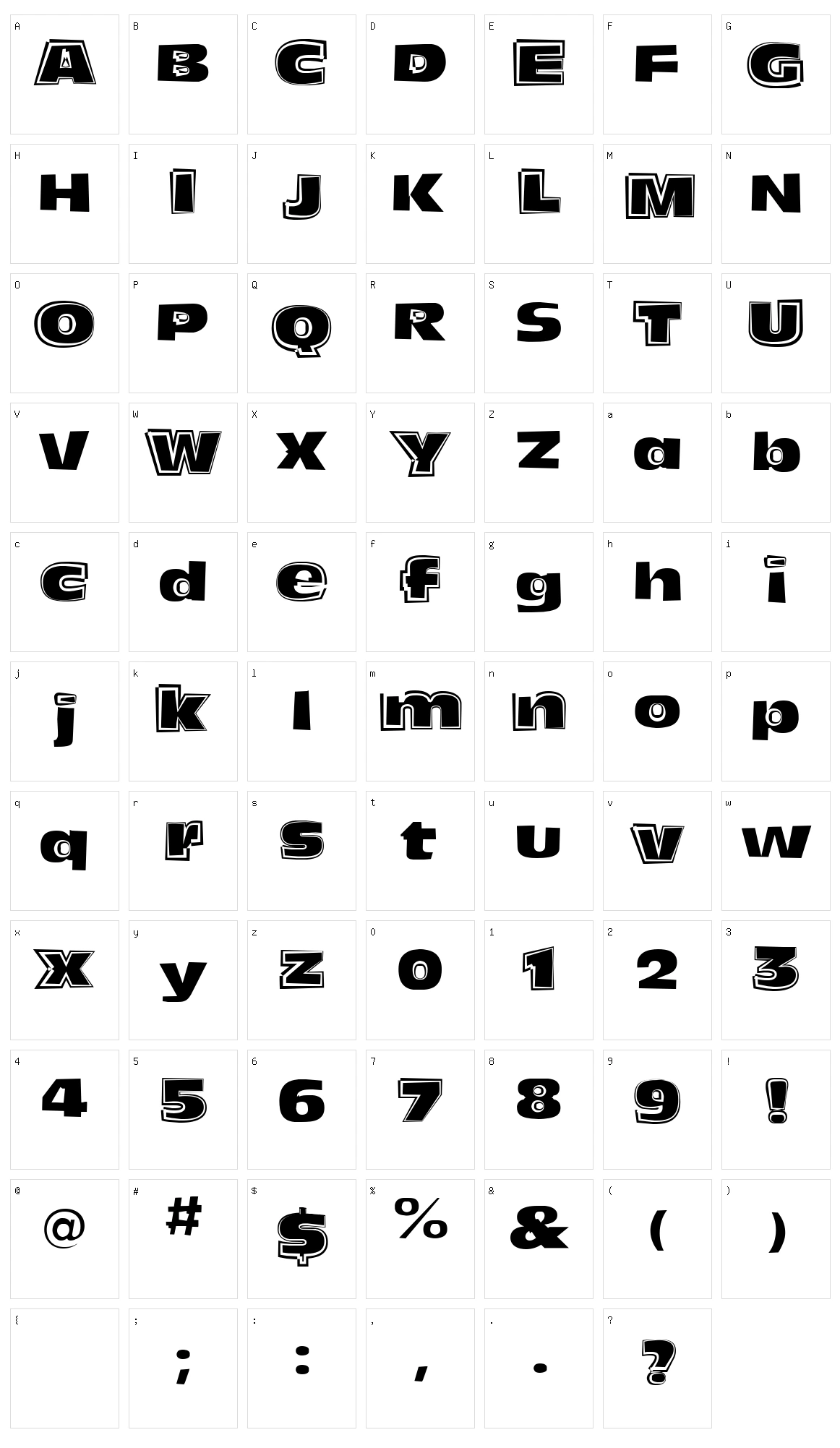
The free font Funky Olive is carefully designed by Bethany Phipps, showcasing a thoughtful balance of creativity and usability and falls under the Distorted font style. When you download the ZIP file, it contains only 27.54 KB of font files, making it lightweight and quick to download. Please review the license details below to understand permitted usage and distribution rights. If license information is not available, we recommend using this font for personal projects only or contacting the author directly for commercial usage permissions.